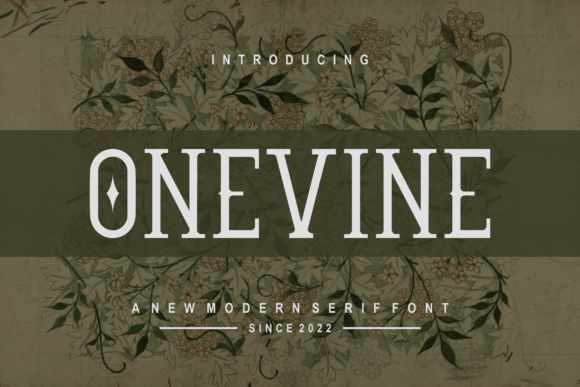
In a world where attention spans dwindle and competition rages, your resume must stand out to conquer the job market. Meet Onevine, the sophisticated and refined serif font, meticulously crafted to make your resume shine. Onevine radiates elegance, professionalism, and a touch of modern charm, transforming your resume into a captivating narrative of your accomplishments and skills.
With its crisp lines, graceful curves, and a touch of whimsy, Onevine invites recruiters to dive deep into your resume. Its carefully balanced contrast between thick and thin strokes ensures readability, even in small font sizes, making it perfect for those all-important headers and subheadings. Each character is a masterpiece of precision, ensuring a smooth and seamless flow of information.
Onevine's versatility extends beyond the realm of resumes. It seamlessly adapts to a myriad of creative endeavors, from brochures and flyers to logos and branding. Its inherent elegance adds a touch of sophistication to any design, whether you're crafting a timeless business card or an eye-catching poster.
So, why settle for ordinary when you can command attention with Onevine? Embrace the power of Onevine and watch as your resume rises above the mundane, captivating recruiters with its distinctive allure. This font is your secret weapon, transforming your resume into an unforgettable masterpiece that opens doors to new opportunities. Seize the moment and download Onevine today. Let your resume shine, let your skills sparkle, let Onevine be your voice in the competitive job market.